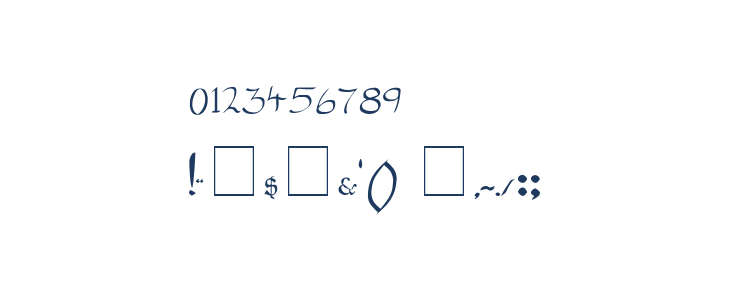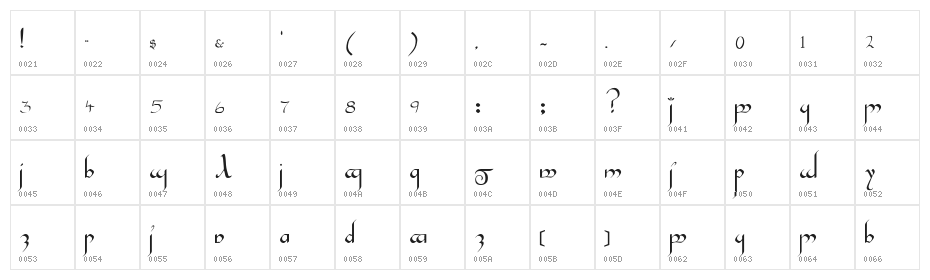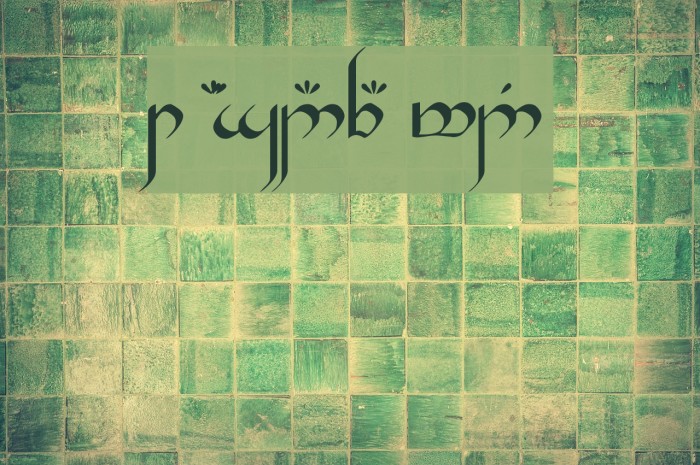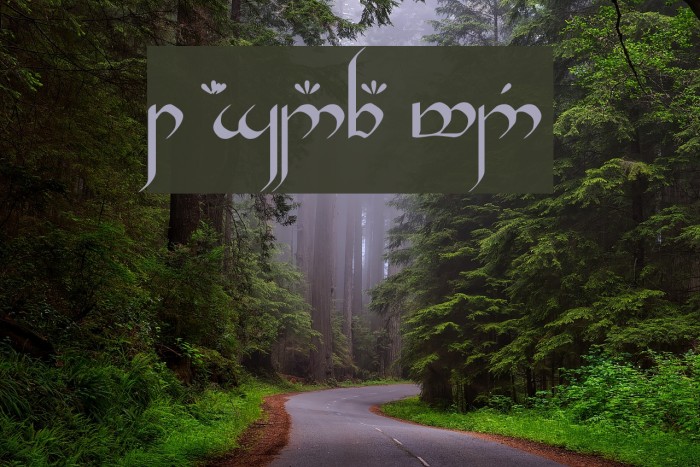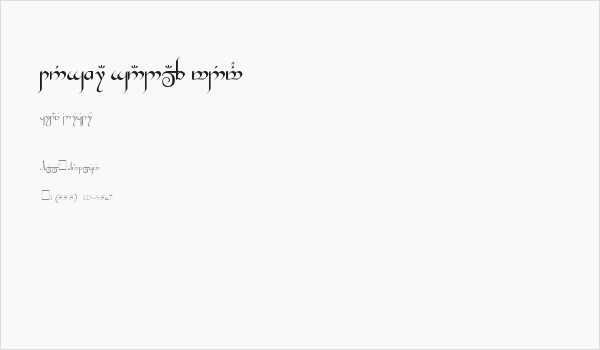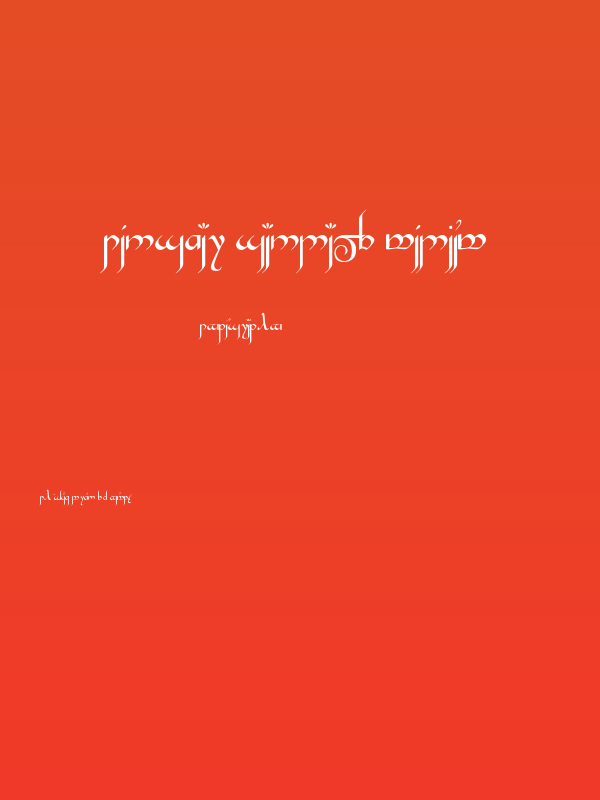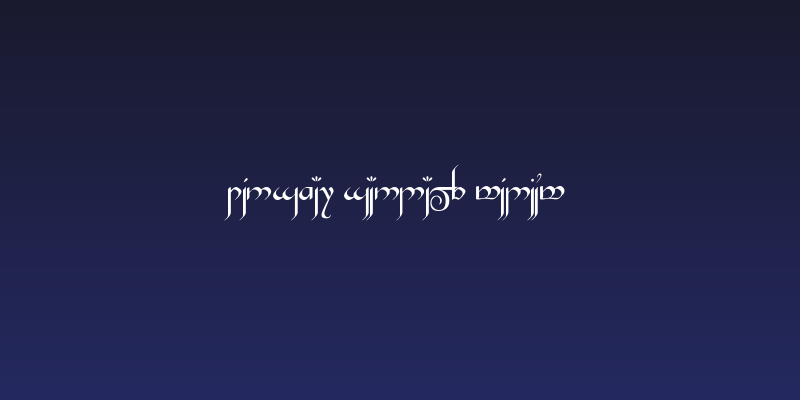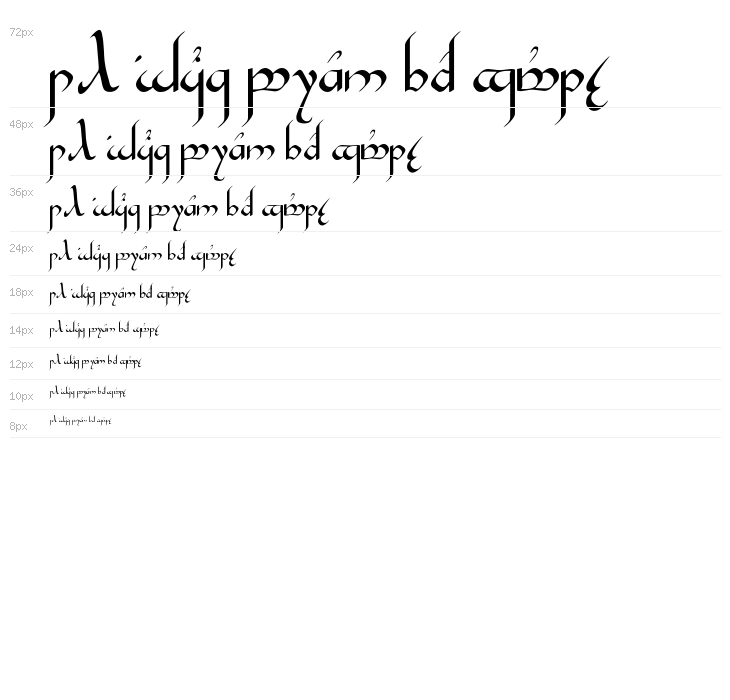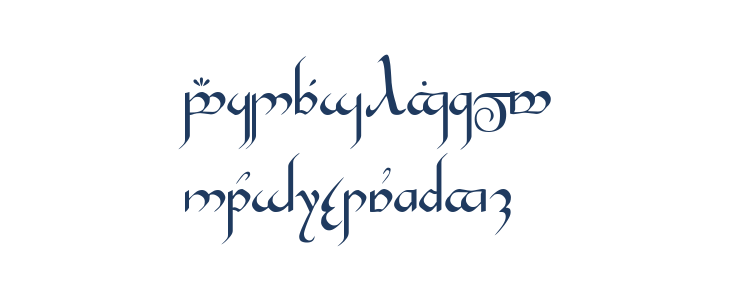
Tengwar Gandalf Medium Font
Tengwar Gandalf Medium Description
This font is a decorative script that evokes a sense of fantasy and mysticism, reminiscent of ancient runes or elvish writing. The characters are elegantly elongated with intricate curves and flourishes, giving it a unique and artistic appearance. The numerals and special characters maintain the same stylistic elements, ensuring consistency across all glyphs. The overall design is highly stylized, making it suitable for creative and thematic projects.
| Use Case | Logos, Titles, Creative projects |
| Proposed Projects | Ideal for fantasy-themed projects, book covers, movie titles, or any creative work that requires an enchanting and otherworldly aesthetic. |